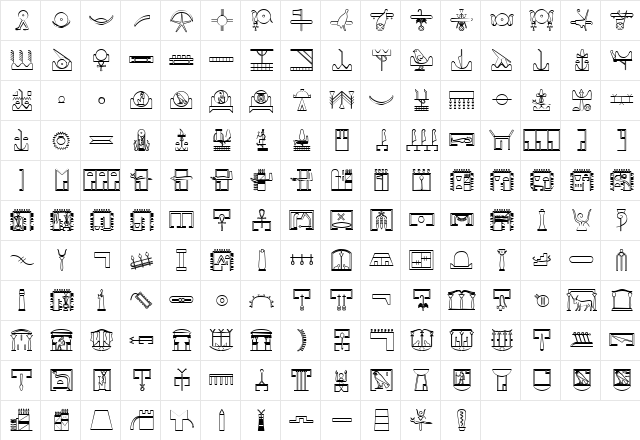
GlyphExtLibM Medium
Design Context for GlyphExtLibM Typeface
GlyphExtLibM is a composed and adaptable typeface that performs quietly and consistently across a wide range of design contexts.